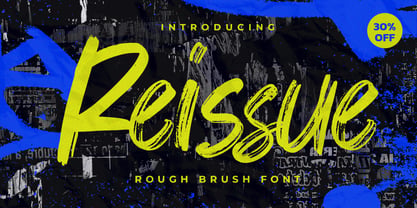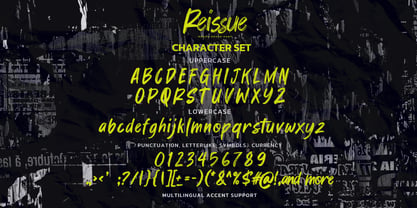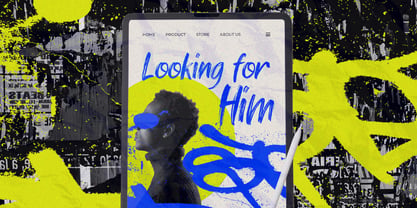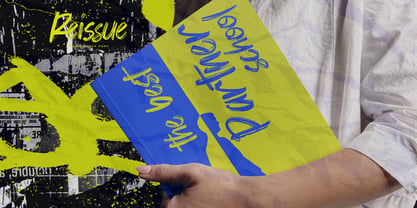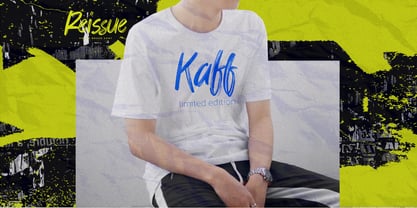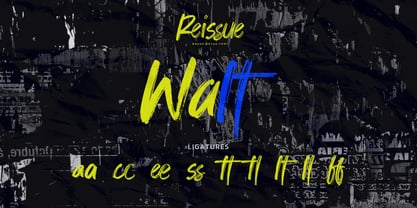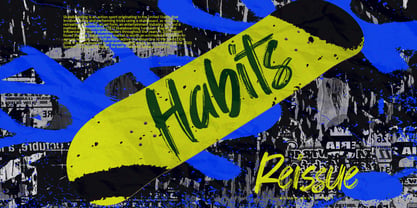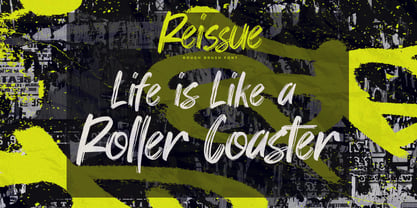
Reissue
by Almarkha Type
The Reissue Font Family was designed by Abdul Malik Wisnu and published by Almarkha Type. Reissue contains 1 styles. More about this family
Reissue is a rough brush typeface that exudes raw texture, high energy, and an unapologetic attitude. Each stroke appears hand-painted and alive, offering an expressive, gritty, and rebellious style that captures attention instantly. With its imperfect edges, dynamic movement, and bold brush character, Reissue injects a fierce personality into any design. This font embodies the essence of street art, DIY culture, and urban expression, making it a striking choice for visuals that demand power, chaos, and an artistic edge. Loud, messy, and full of emotion, Reissue is crafted for those who dare to make a statement.
Designers: Abdul Malik Wisnu
Foundry: Almarkha Type